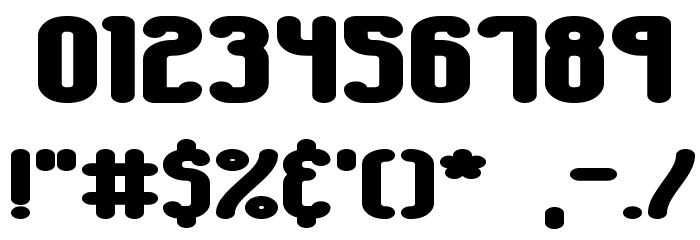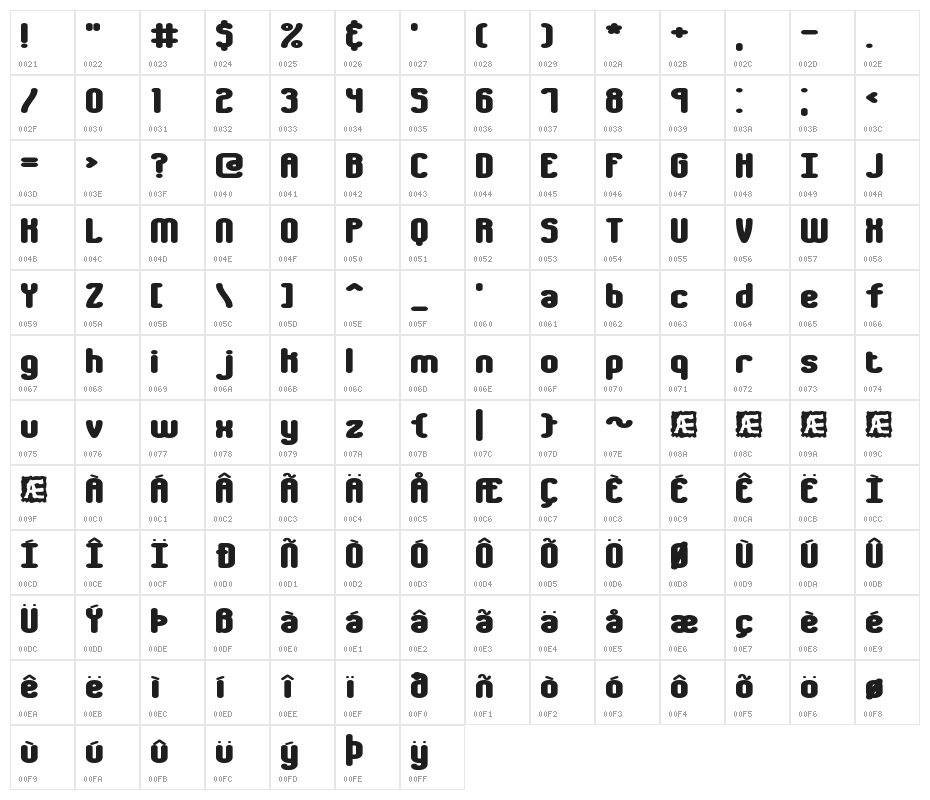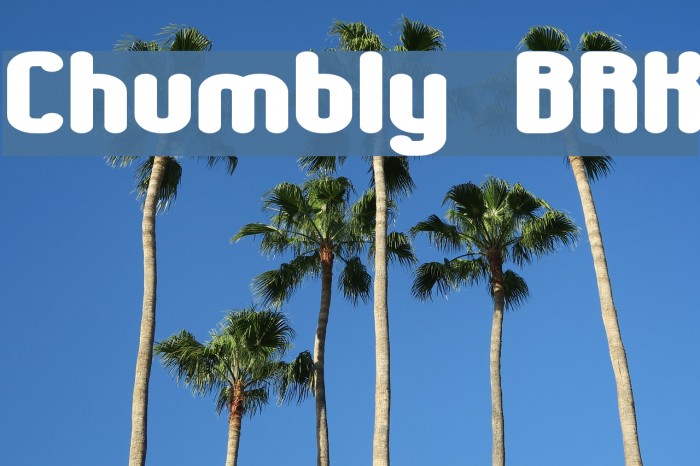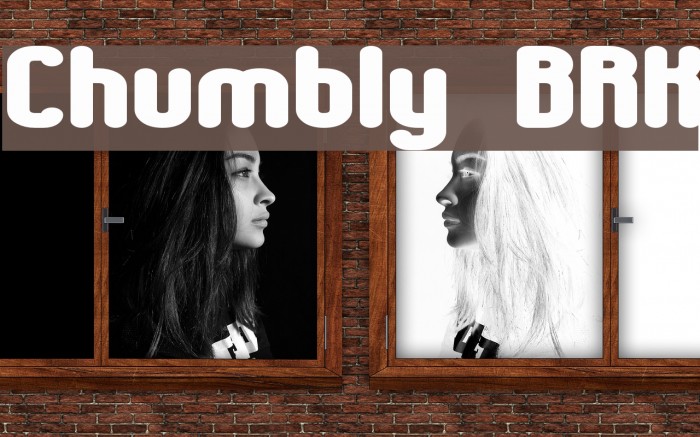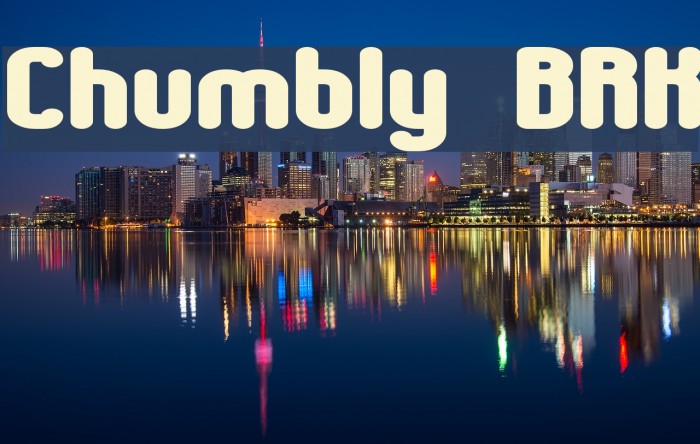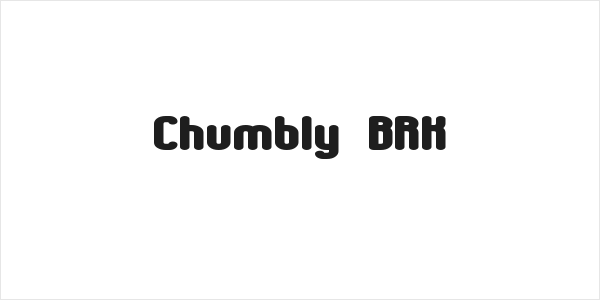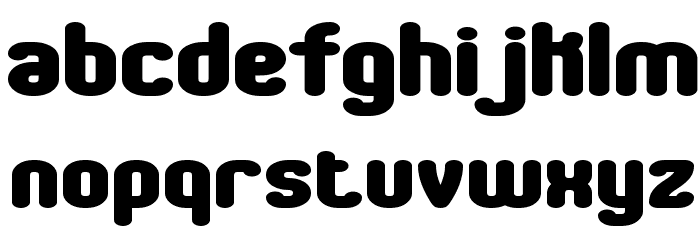
Chumbly BRK Font
Chumbly BRK Description
This font features a bold and playful design with rounded edges and a chunky appearance. The characters are uniformly thick, creating a strong visual impact. Its rounded terminals and consistent stroke width give it a friendly and approachable feel. The font maintains a consistent height across all characters, enhancing readability while adding a touch of whimsy. Its boldness makes it stand out, making it suitable for attention-grabbing designs. The numbers and special characters follow the same stylistic approach, ensuring uniformity throughout.
| Proposed Projects | Ideal for children's books, playful branding, posters, and creative advertising. |